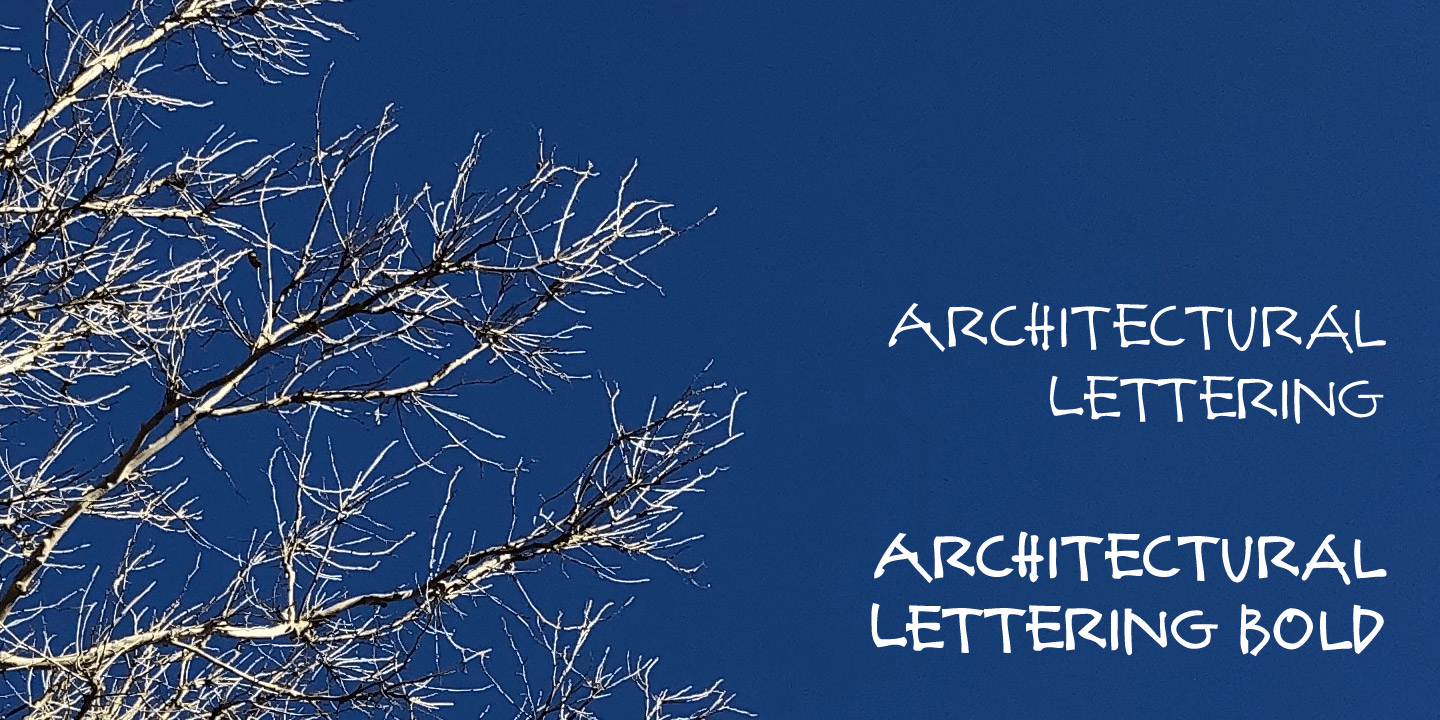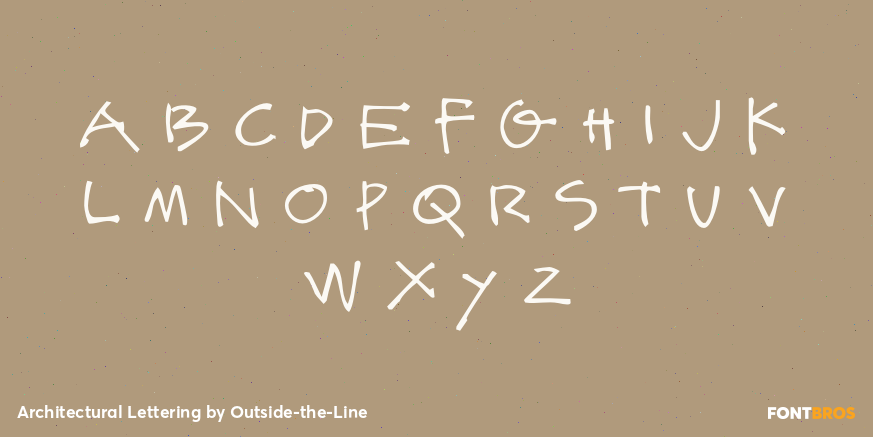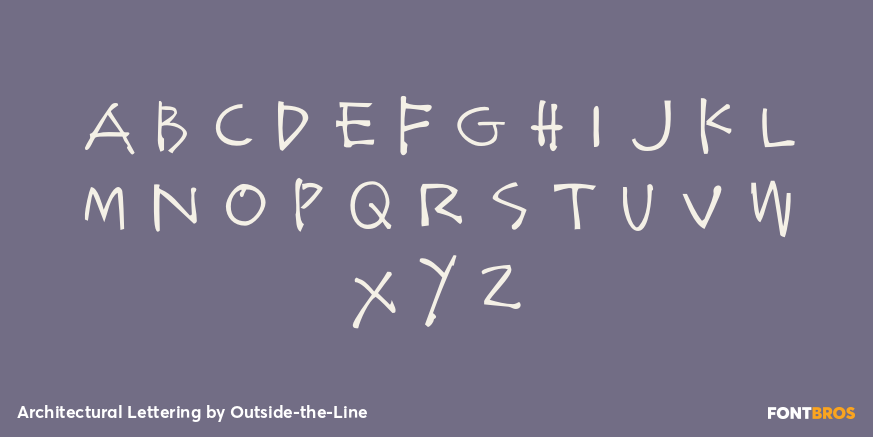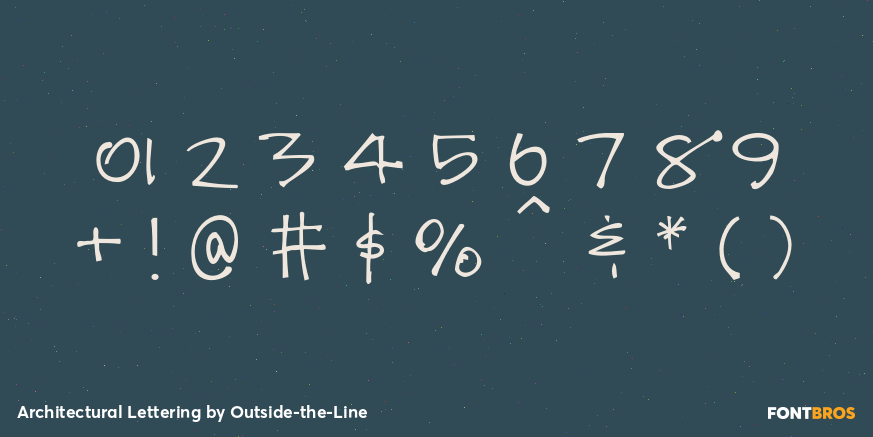
Architectural Lettering
Font Family by Outside-the-Line
This font is for architects everywhere. This all cap font with fractions was created for use with CAD programs. It gives the hand lettered look of old to computer-generated blueprints.